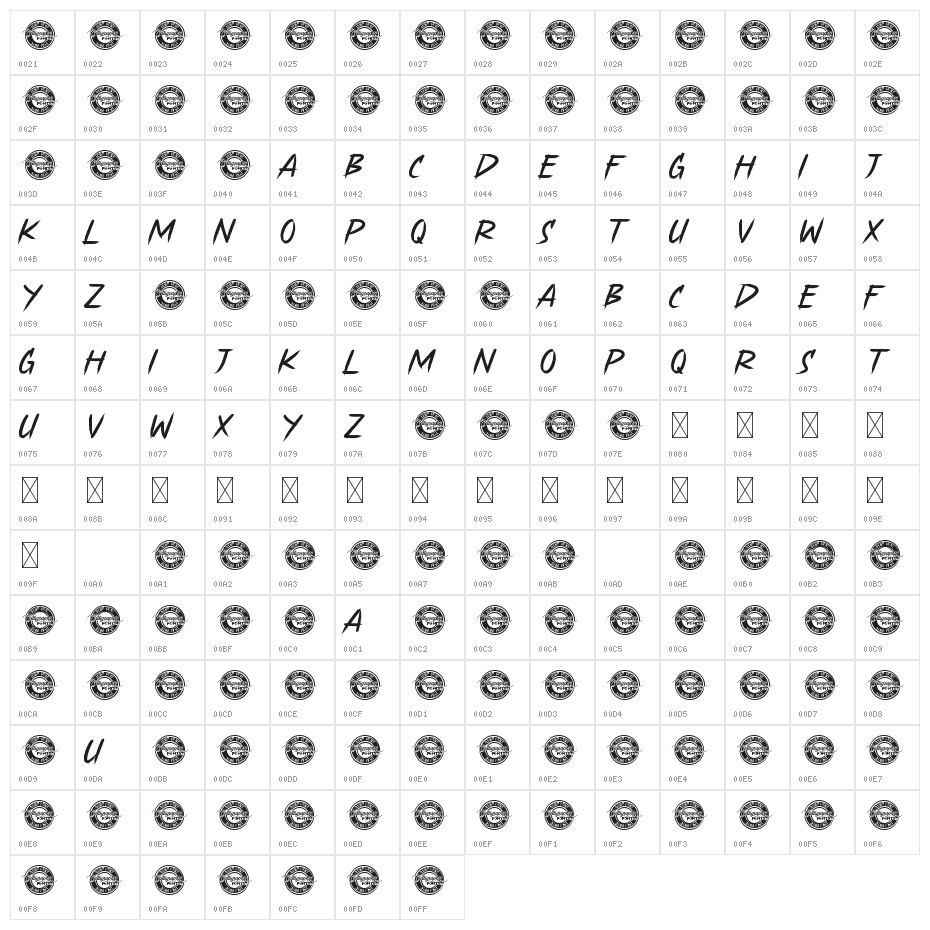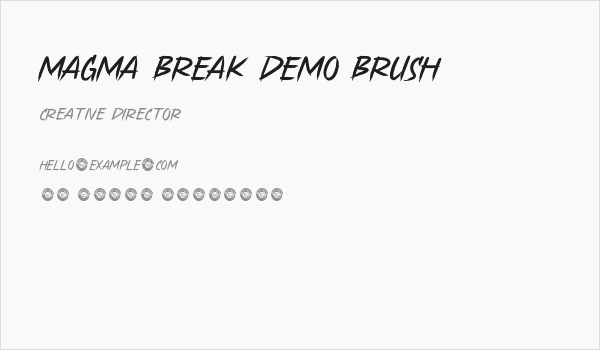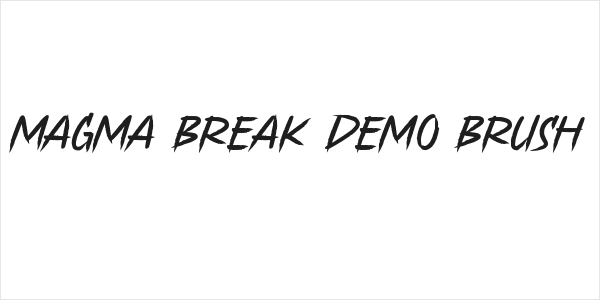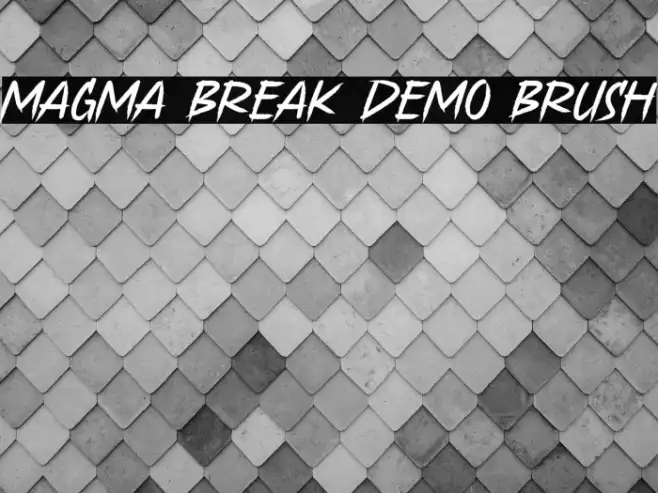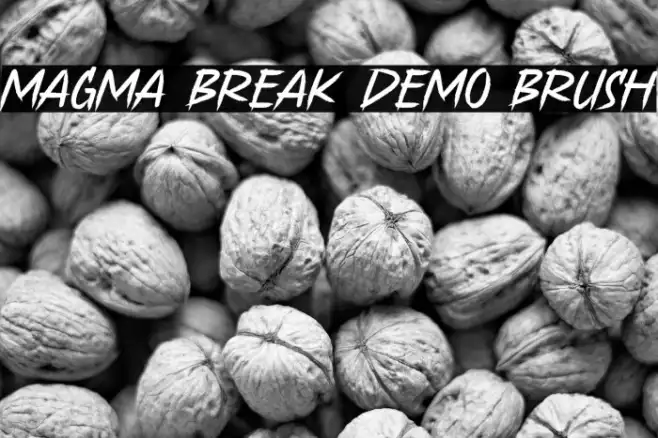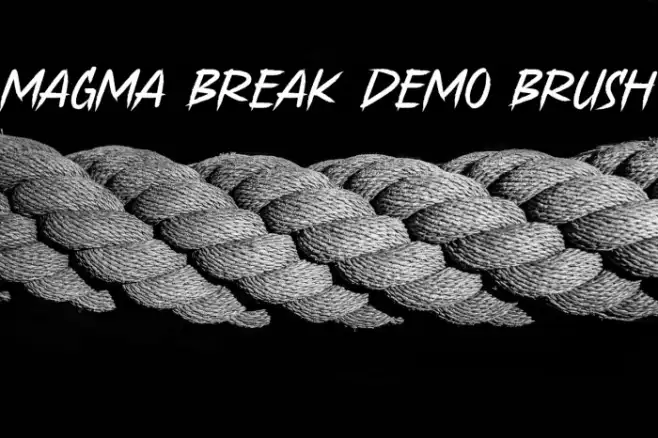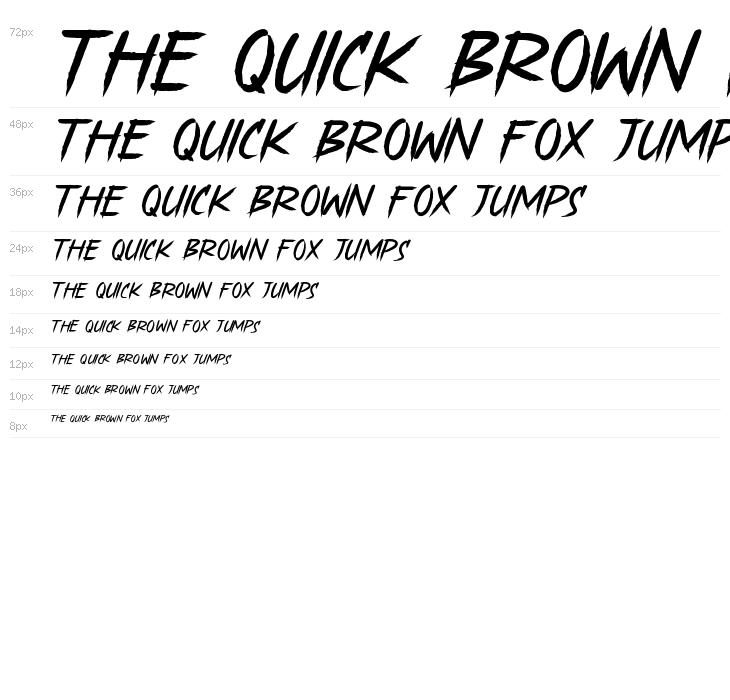
Magma Break Demo Brush Font
Magma Break Demo Brush Description
This font features a dynamic and energetic brush style, characterized by sharp, angular strokes and a hand-painted appearance. The uppercase letters exhibit a bold and assertive presence, while the lowercase letters maintain a consistent flow with slightly exaggerated curves. The overall design conveys a sense of movement and spontaneity, making it ideal for projects that require a bold and artistic touch. The font's unique style is further enhanced by its irregular edges, giving it an authentic, handcrafted feel. This font is perfect for creative projects that aim to capture attention and convey a sense of individuality.